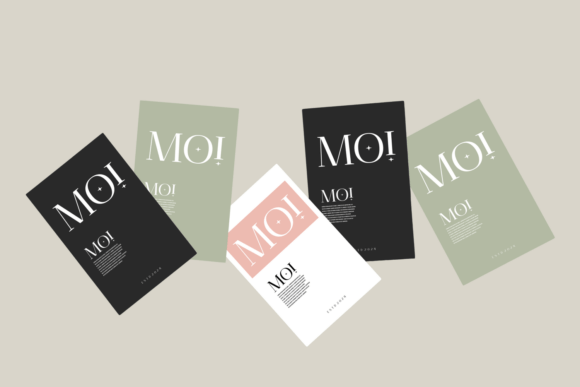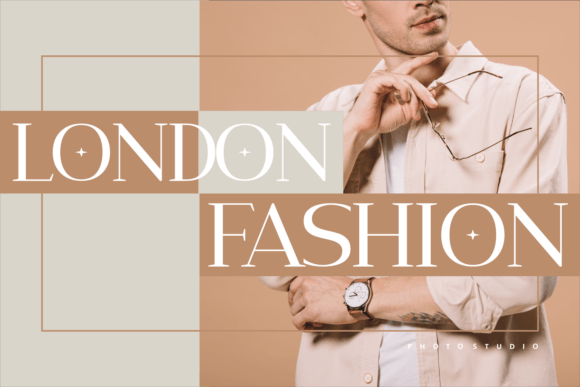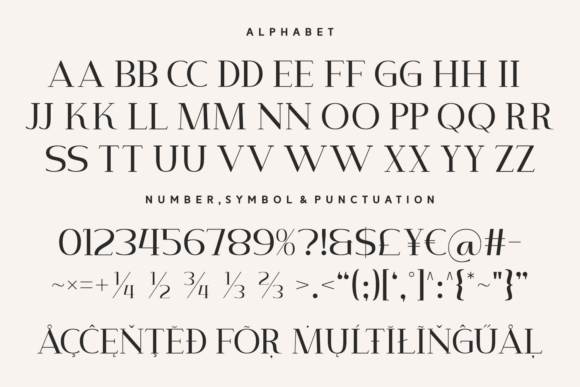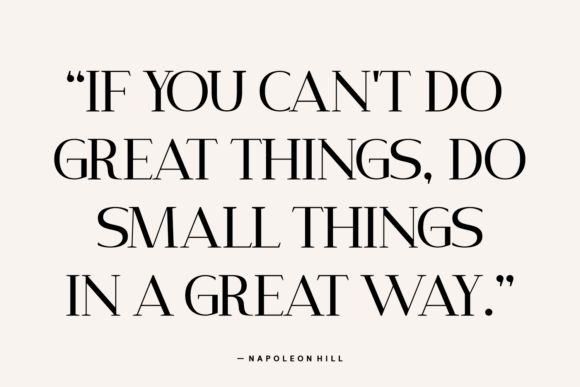
Introduction to Henoki Font
Remember that moment when you’re working on a design project and you just can’t seem to find the perfect font to capture the essence of your creative vision? You’ve spent hours browsing through countless options, but nothing seems to fit the bill. Well, we’re here to introduce you to a game-changer: the Henoki Font.
This elegant serif font is a masterclass in balance and harmony, blending modern style with timeless charm. With its refined curves and sharp serifs, Henoki Font adds a touch of sophistication to any design project. Whether you’re working on a branding campaign, an editorial piece, or an invitation, Henoki Font is the perfect design resource to elevate your work.
Key Features of Henoki Font
- Designed with a modern and elegant style, suitable for various creative projects, including logos, typography, and graphics.
Honest Review: Henoki Font
I recently had the chance to work with the Henoki Font, and I must say it’s been a game-changer for my design projects. This free download has been a valuable addition to my design resource arsenal.
- ✨ The font’s unique and elegant design makes it perfect for creative projects that require a touch of sophistication.
- ✨ The font’s high quality ensures that it scales well, even at larger sizes.
While the Henoki Font is a great resource, I do have a few minor complaints. The font’s limited character set can be a bit restrictive for more complex projects ⚠️. Additionally, the font may not be compatible with all software or systems, which can be a hassle ⚠️.
Overall, I’m thoroughly impressed with the Henoki Font. Its unique design, high quality, and flexibility make it a valuable addition to any designer’s toolkit. With a little creativity, I’ve been able to work around its limitations and achieve some truly stunning results.